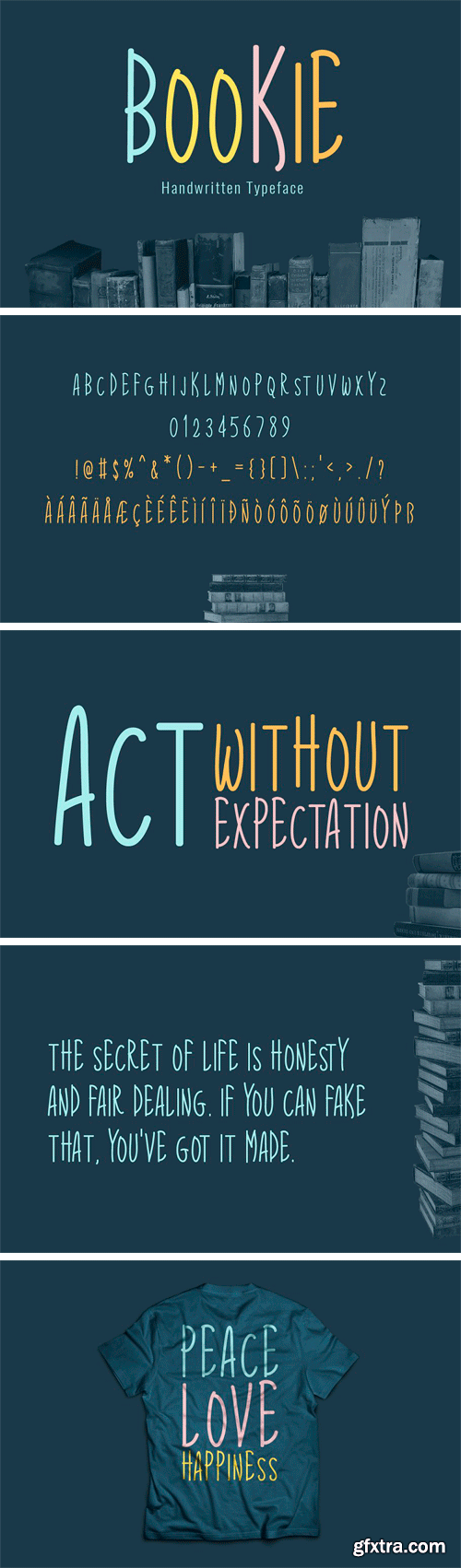
Bookie is a brand new handwritten font. Bookie is perfectly suited for stationery, logos, t-shirt, paper, print design, website header, photo frame, flyer, music cover, poster, image slider and much more.